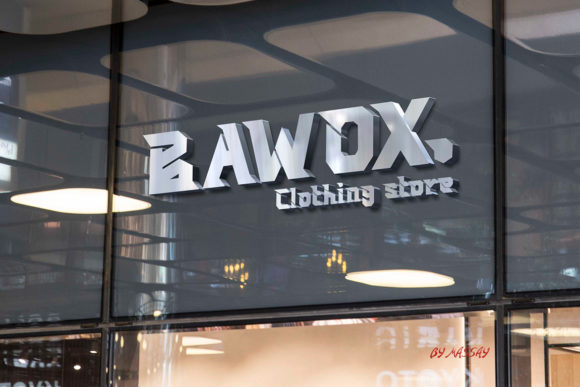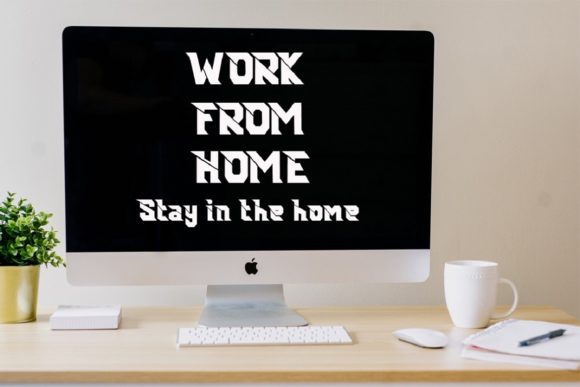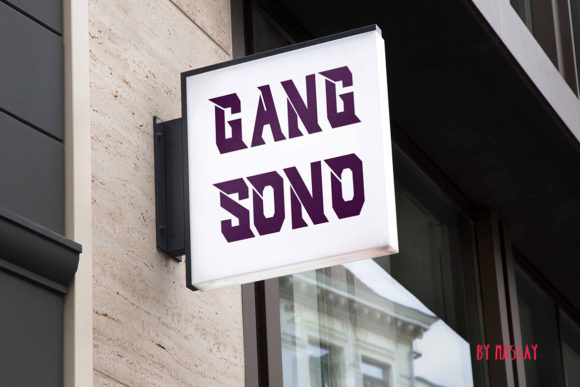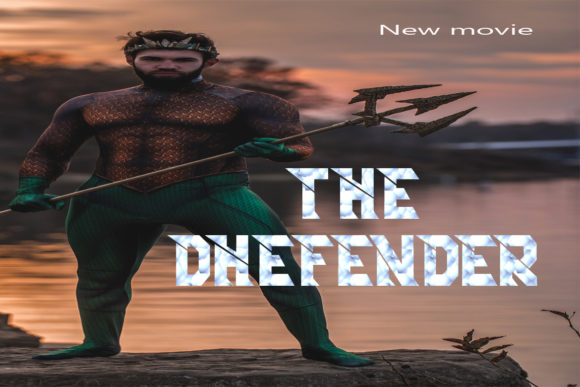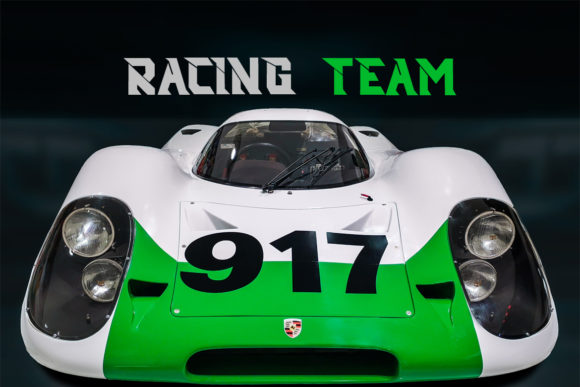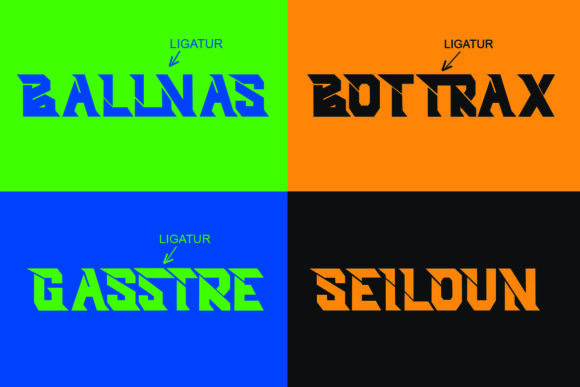
Unleash Your Creativity with Fastrace Font
You’ve got that spark – the idea that’s been brewing in your mind for weeks, the concept that’s going to change everything. You grab your pen and start sketching, the excitement building up as the lines and shapes begin to take form. But, there’s one thing holding you back – the perfect font to bring your vision to life. This is where the magic happens, and that’s where the Fastrace Font comes in.
This enchanting display font is more than just a pretty face; it’s a key to unlocking your creative potential. With its fun, quirky, and authentic vibe, Fastrace Font is the perfect companion for designers looking to add a touch of personality to their work. Whether you’re a seasoned pro or just starting out, this font is a valuable addition to your toolkit, guaranteed to take your designs to the next level.
Fastrace Font Key Features
- Font Family: Fastrace Font is a modern sans-serif font family designed for speed and readability. It is available in 4 weights: Light, Regular, Medium, and Bold.
- Character Set: The font family includes a comprehensive character set, including Latin, Cyrillic, and Greek alphabets, as well as punctuation and symbols.
- Size and Resolution: Fastrace Font is designed for use at high resolutions (up to 300 DPI) and large sizes (up to 24 points) without losing its clarity and legibility.
- Unique Characteristics: Fastrace Font features a unique blend of modern and geometric shapes, resulting in a clean, minimalist aesthetic that is both visually striking and highly readable.
Fastrace Font Review
First of all, I’d like to say that I was initially excited about the Fastrace font. The design team behind it has done a great job in creating a font that’s both modern and sleek. ✨ One thing that I appreciate about Fastrace is its versatility – it can be used for a wide range of applications, from titles and headings to body text.
Some of the other features that I like about Fastrace include:
- Its clean and minimalist aesthetic
- Its high level of legibility, making it easy to read even at small sizes
- Its wide language support, including many non-Latin scripts
However, there are also some limitations to consider. ⚠️ One of the main drawbacks of Fastrace is its limited character set – it doesn’t include as many special characters and symbols as some other fonts. Additionally, the font may not be as effective for long blocks of text, as it can start to feel a bit monotonous.
Overall, I think Fastrace is a solid choice for designers looking for a modern and versatile font. While it may not be perfect, it’s definitely worth considering for your next project.
Getting the Most Out of Fastrace Font
To get the most out of Fastrace Font, use it for headings and titles to add a touch of modernity and speed. Pair it with clean, minimalist designs for a sleek and professional look.
Fastrace Font is commonly used in sports and fitness branding, automotive design, and high-performance marketing materials. It’s perfect for creating dynamic and energetic visuals that convey a sense of speed and movement.
What is the character set of Fastrace Font?
Fastrace Font includes a comprehensive character set that covers Latin, Cyrillic, and Greek alphabets, as well as punctuation and symbols. The font also includes a range of ligatures, swashes, and ornaments for added typographic flair.